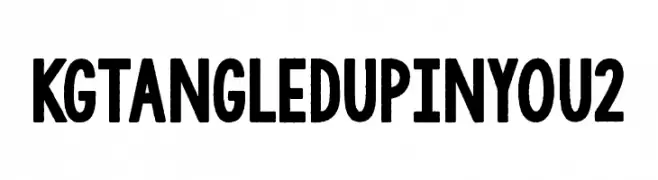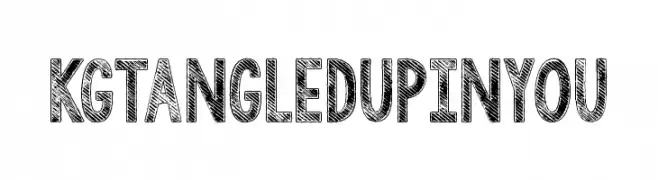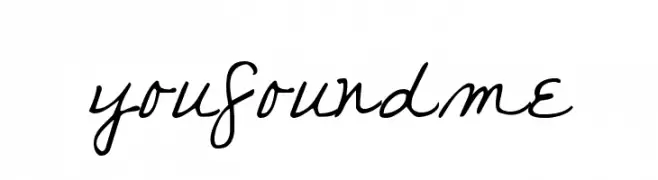
( Fonts by www.kimberlygeswein.com - Kimberly Geswein )
A playful, handwritten font with a casual and friendly vibe.
( Fonts by www.kimberlygeswein.com - Kimberly Geswein )
A playful, handwritten font with a whimsical and friendly style.
( Fonts by www.kimberlygeswein.com - Kimberly Geswein )
A playful, rounded font with smooth lines and a casual, friendly style.
( Fonts by www.kimberlygeswein.com - Kimberly Geswein )
A playful, heart-accented font with a hand-drawn, whimsical style.
( Fonts by www.kimberlygeswein.com - Kimberly Geswein )
A playful, casual handwritten font with smooth curves and a friendly appearance.
( Fonts by www.kimberlygeswein.com - Kimberly Geswein )
A playful, handwritten font with smooth curves and a casual style.
( Fonts by www.kimberlygeswein.com - Kimberly Geswein )
A lively and playful handwritten font with fluid, connected strokes.
( Fonts by www.kimberlygeswein.com - Kimberly Geswein )
A casual, handwritten font with fluid and natural strokes.
( Fonts by www.kimberlygeswein.com - Kimberly Geswein )
A casual, handwritten font with fluid, natural strokes and a playful appearance.
( Fonts by www.kimberlygeswein.com - Kimberly Geswein )
A playful, handwritten-style font with a casual and friendly appearance.
( Fonts by Kimberly Geswein )
A distressed, textured font with a rugged, vintage appearance.
( Fonts by Kimberly Geswein )
A playful, dotted font with bold outlines and a decorative style.
( Fonts by Kimberly Geswein )
A bold, decorative font with heart patterns on each character.
( Fonts by Kimberly Geswein )
A bold, outlined font with clean lines and geometric shapes, perfect for impactful designs.
( Fonts by Kimberly Geswein )
A bold, impactful font with clean lines and consistent stroke width.
( Fonts by Kimberly Geswein )
A bold, star-patterned decorative font with a playful style.
( Fonts by www.kimberlygeswein.com - Kimberly Geswein )
A playful, hand-drawn font with textured diagonal lines and bold, rounded characters.
( Fonts by www.kimberlygeswein.com - Kimberly Geswein )
A bold, playful, hand-drawn font with a casual and friendly style.
( Fonts by www.kimberlygeswein.com - Kimberly Geswein )
A bold, distressed font with a vintage, stamped look.
( Fonts by www.kimberlygeswein.com - Kimberly Geswein )
A bold, condensed sans-serif font with clean lines and high legibility.
( Fonts by www.kimberlygeswein.com - Kimberly Geswein )
A bold, decorative font with dot accents above each character.
( Fonts by www.kimberlygeswein.com - Kimberly Geswein )
A bold, distressed font with a rugged, vintage feel.
( Fonts by www.kimberlygeswein.com - Kimberly Geswein )
A playful, casual handwritten font with smooth, connected strokes.
( Fonts by Kimberly Geswein )
( Fonts by www.kimberlygeswein.com - Kimberly Geswein )
A playful, casual handwritten font with dynamic strokes.
( Fonts by www.kimberlygeswein.com - Kimberly Geswein )
A bold, handwritten font with a casual and playful style.